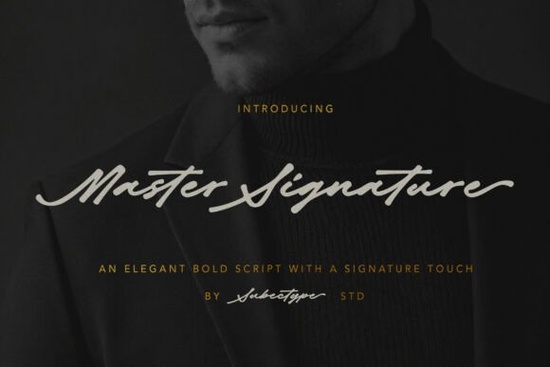
Master Signature Font is a standout choice for anyone looking to add a touch of elegance and professionalism to their design work. This bold and stylish script font mimics the look of a real handwritten signature, making it ideal for a wide range of creative projects. Whether you're working on logos, branding materials, or social media graphics, Master Signature brings a refined and confident appearance that stands out.
One of the key strengths of Master Signature Font is its versatility. It works well in both digital and print formats, making it a go-to option for designers, small business owners, and crafters. The font’s smooth curves and bold strokes give it a natural, handcrafted look that feels authentic. This makes it perfect for creating eye-catching logos, wedding invitations, product labels, and more.
Why Choose Master Signature Font?
When it comes to choosing a signature font, the right one can make a big difference in how your brand or project is perceived. Master Signature Font is designed with this in mind, offering a balance between style and functionality. Its clean lines and consistent spacing ensure that it looks great in any context, whether used as a logo font or as part of a larger design.
Best Uses for Master Signature Font
There are many ways to incorporate Master Signature Font into your creative projects. Here are a few popular applications:
- Logo Design: Create a memorable and professional-looking logo that reflects your brand’s personality.
- Branding Materials: Use it for business cards, packaging, and marketing collateral to maintain a cohesive visual identity.
- Social Media Graphics: Add a personal touch to your posts, banners, or profile pictures.
- Wedding Invitations: Enhance the elegance of your invitations with a custom, handwritten-style font.
- Product Labels: Make your products stand out with a unique and stylish label design.
If you’re looking for a font that combines sophistication with practicality, Master Signature Font is an excellent choice. It’s especially useful for those who want to add a handwritten feel without the effort of writing by hand.
How to Get the Most Out of Master Signature Font
To get the best results with Master Signature Font, consider the following tips:
- Experiment with Sizes: Try different font sizes to see how it looks in various contexts, from large headlines to smaller text.
- Pair with Other Fonts: Combine it with a sans-serif or serif font to create a balanced and visually appealing layout.
- Use in Multiple Formats: Apply it to both digital and print projects to maintain consistency across all your materials.
Remember, the goal is to enhance your design while keeping it readable and professional. Master Signature Font is a powerful tool that can help you achieve that balance.
If you're interested in trying out other similar fonts, you can explore Master Signature Font on Creative Fabrica for more details and examples.
Whether you're a designer, a small business owner, or a creative hobbyist, Master Signature Font is a valuable addition to your toolkit. Its elegant style and practical use make it a top choice for a wide range of projects.
Before finalizing your design, take a moment to review how the font looks in different scenarios. This will help ensure that it meets your needs and enhances your overall visual presentation.